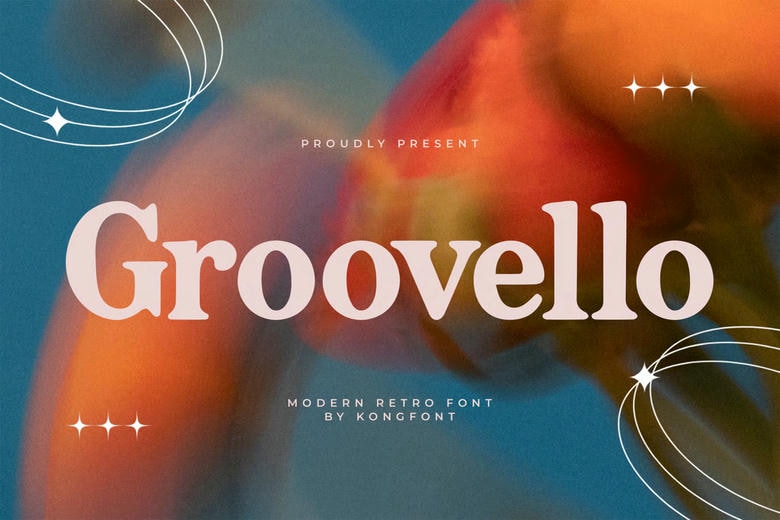
Groovelo Font
Groovelo is a retro font with a modern core and full with a vibrant personality and a nostalgic sign. Having been inspired by bold lines and colorful minx of the 60s and 70s this font is a combination of something old and something new with styles that bring designs that literally leap onto the page.
It has wide letterforms, playful rhythm and flexible forms suited to posters, branding of music events, social media graphics, packaging and anything that requires a retro boldness and polish. It has a fresh, disco-tinged, and groovy aura, but the typeface is universal and can add spice up to any contemporary design.
Groovelo Serif Font